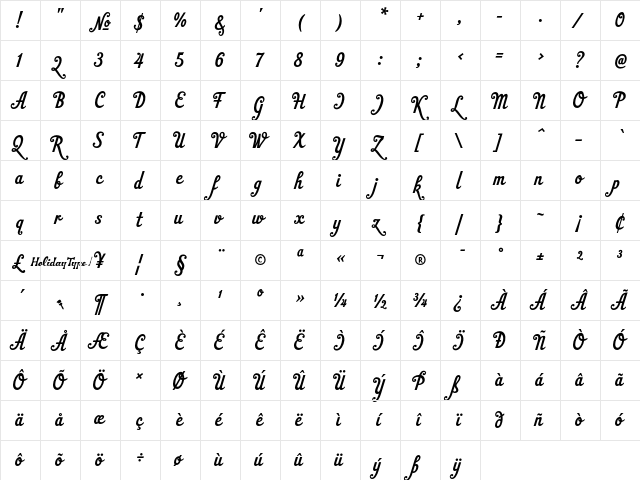
HT Gelateria Regular
| Foundry | Ryoichi Tsunekawa |
| Designer | Ryoichi Tsunekawa |
Design Context for HT Gelateria Typeface
HT Gelateria is a composed and adaptable typeface that performs quietly and consistently across a wide range of design contexts.